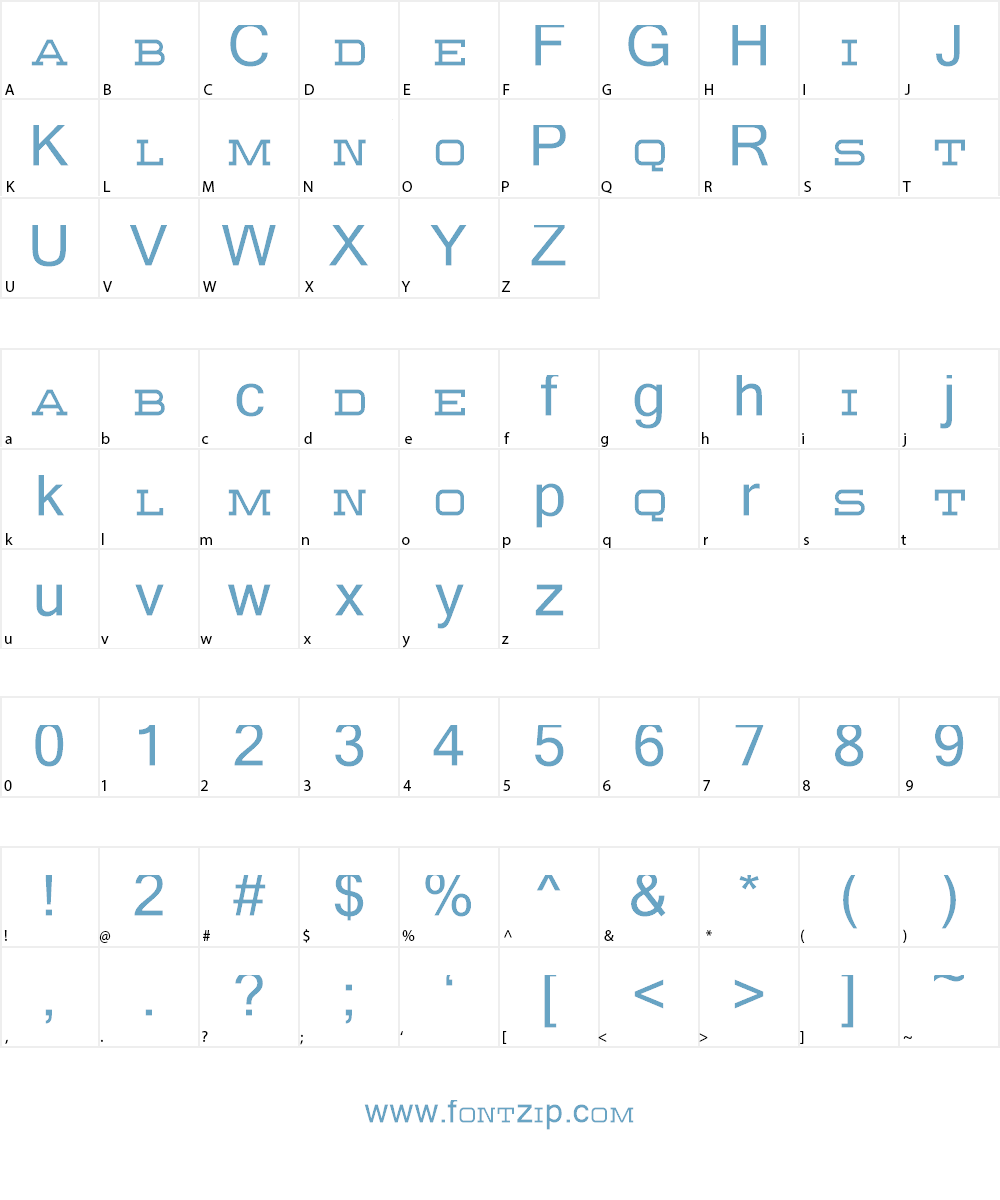
Sebastien Slab is a light slab serif. For the initial release we've built an impressive letter set, including accented letters, punctuation, spacing modifiers, combining diacriticals, subscript / superscript numbers, and mathematical operators. Total glyph count on Sebastien Slab is 534.